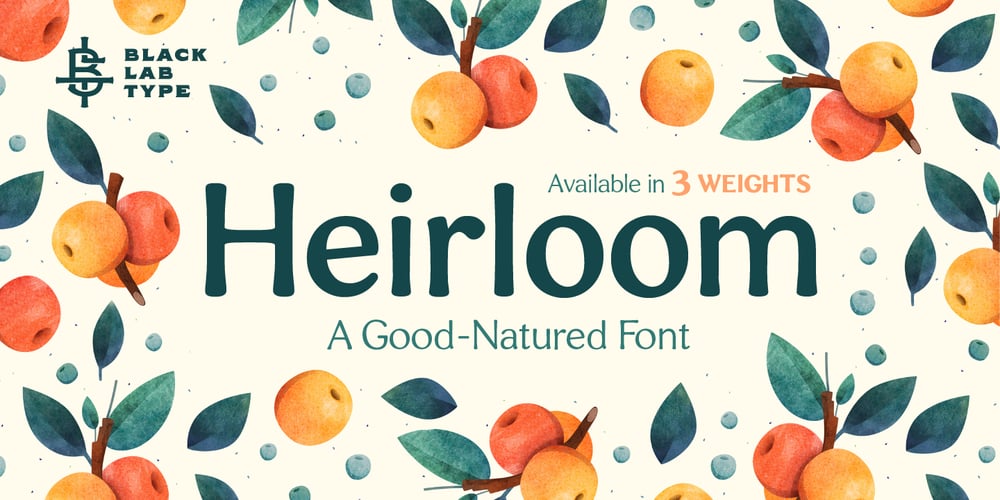
BLT Heirloom
BLT Heirloom font
BLT Heirloom Font Family was designed by Kenny Li and published by Black Lab Type. BLT Heirloom contains 3 styles and family package options. Heirloom grew from an interest of soft and friendly forms from the 1970s, with respect to the time’s chill vibes and natural earthy roots. Its refined approachable characteristics allow it to be very readable carry a modern relaxed attitude. Available in 3 weights: Light, Regular and Bold. Any weight can be used as a display type, logotype and/or headlines, and lighter weights would work in bodies of text. The font pairs well with natural, historical or vintage graphic elements.